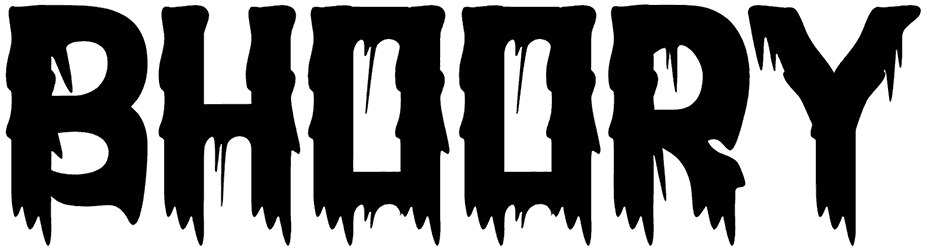
We offer you to steer clear of duplicate typefaces and adding your own signature to artwork such as posters, logos, digital banners, brochures, and social media posts by using a blood dripping font like Halloween Morning. Since its characters look like a melting candle, this all-caps horror font would add a sense of freshness, innovation, dynamism, and fear to the graphic content.
Halloween Morning.